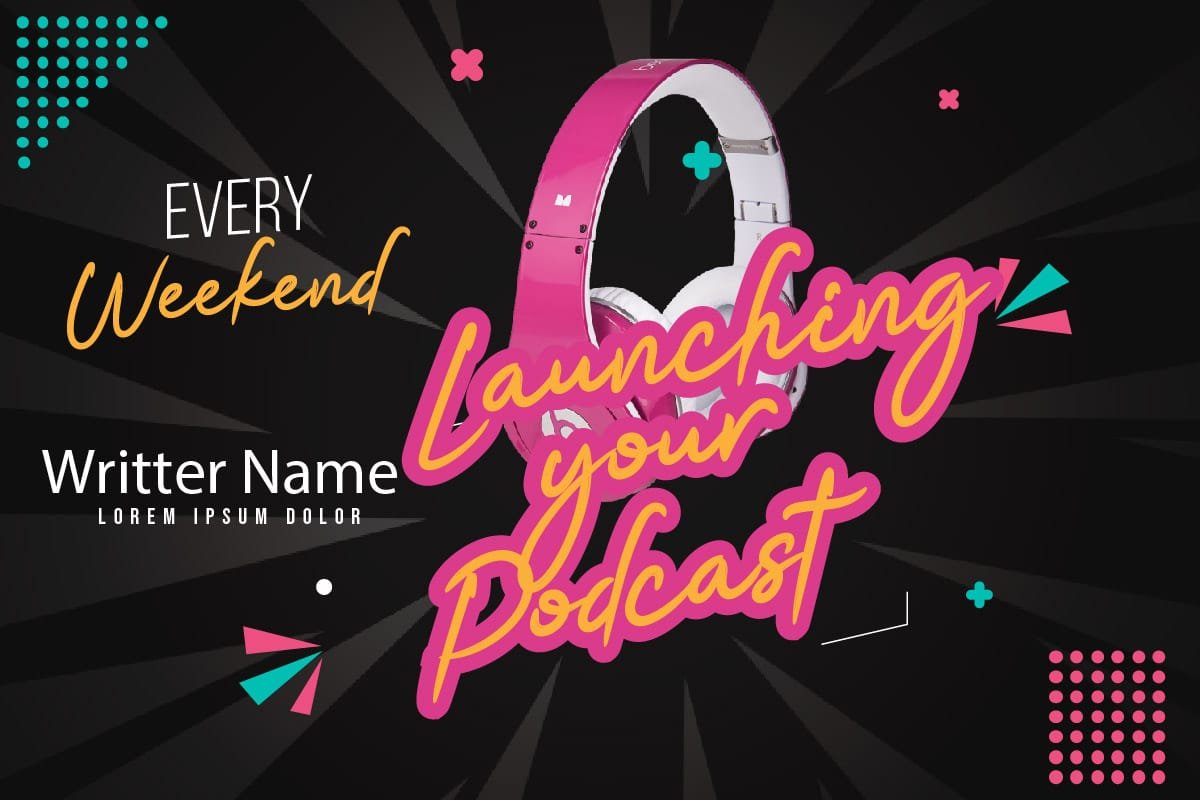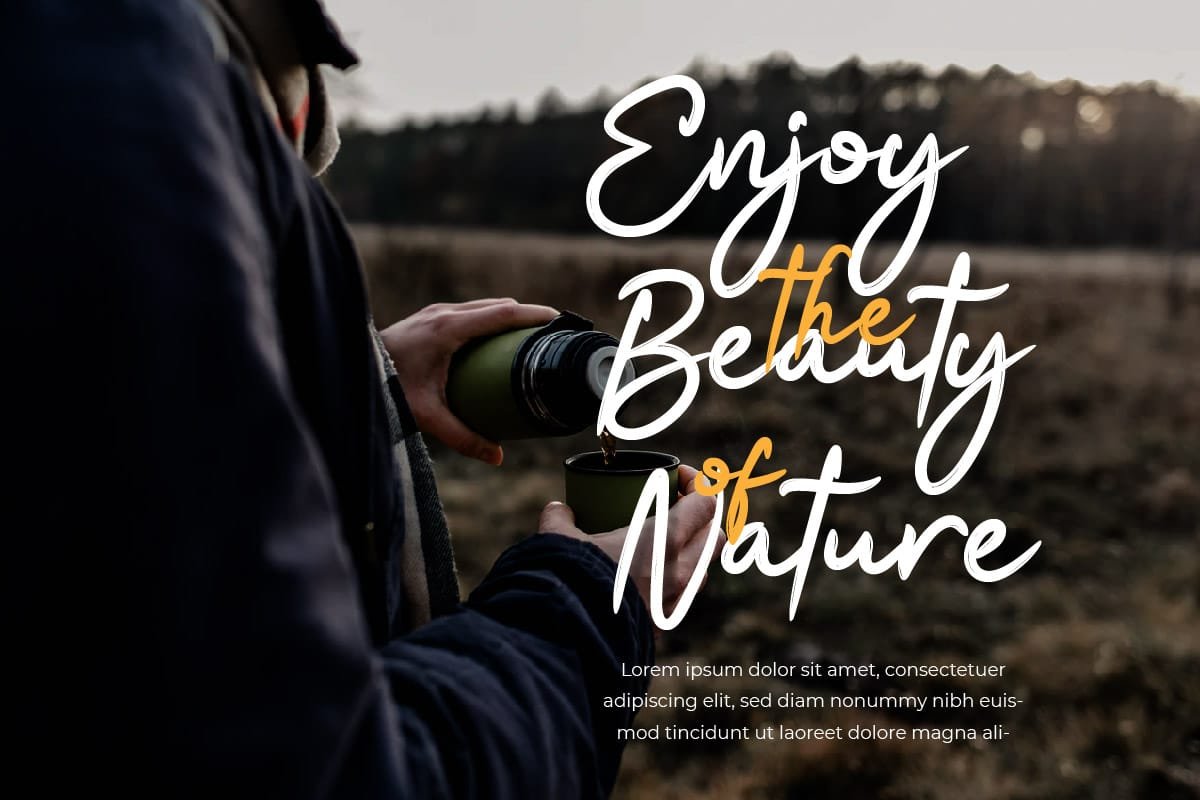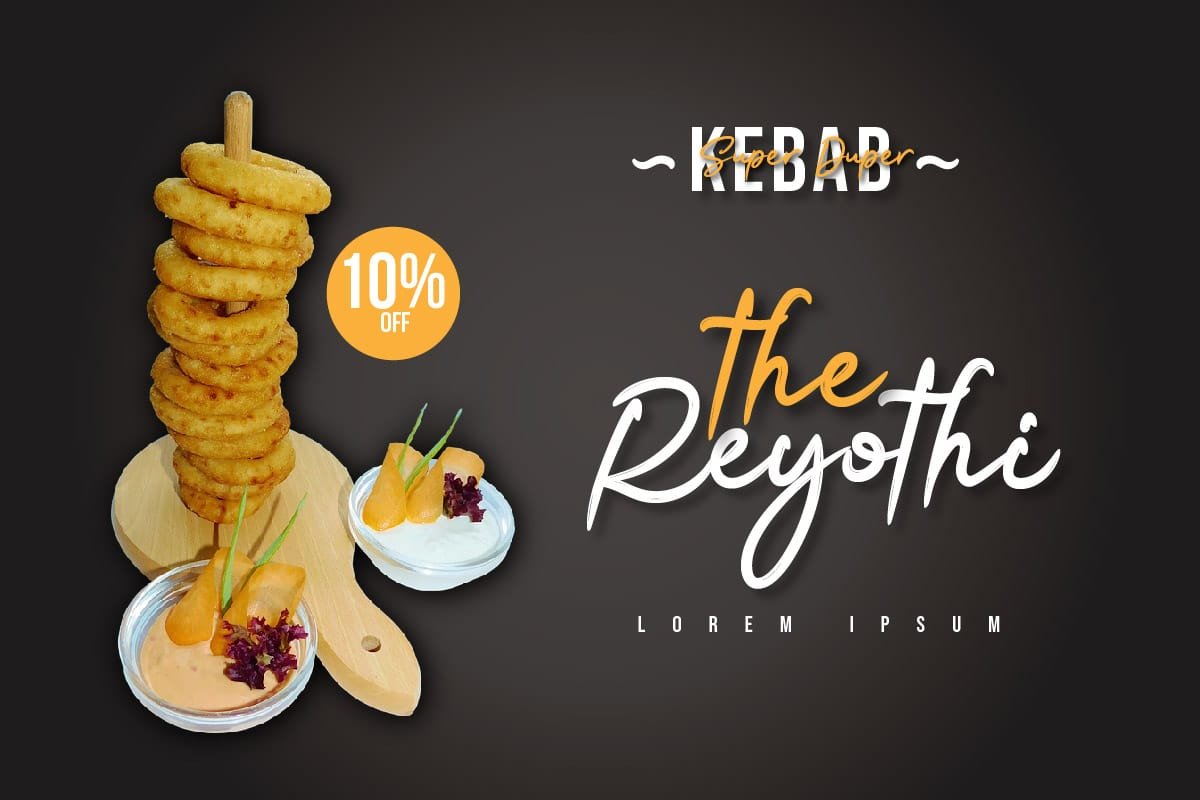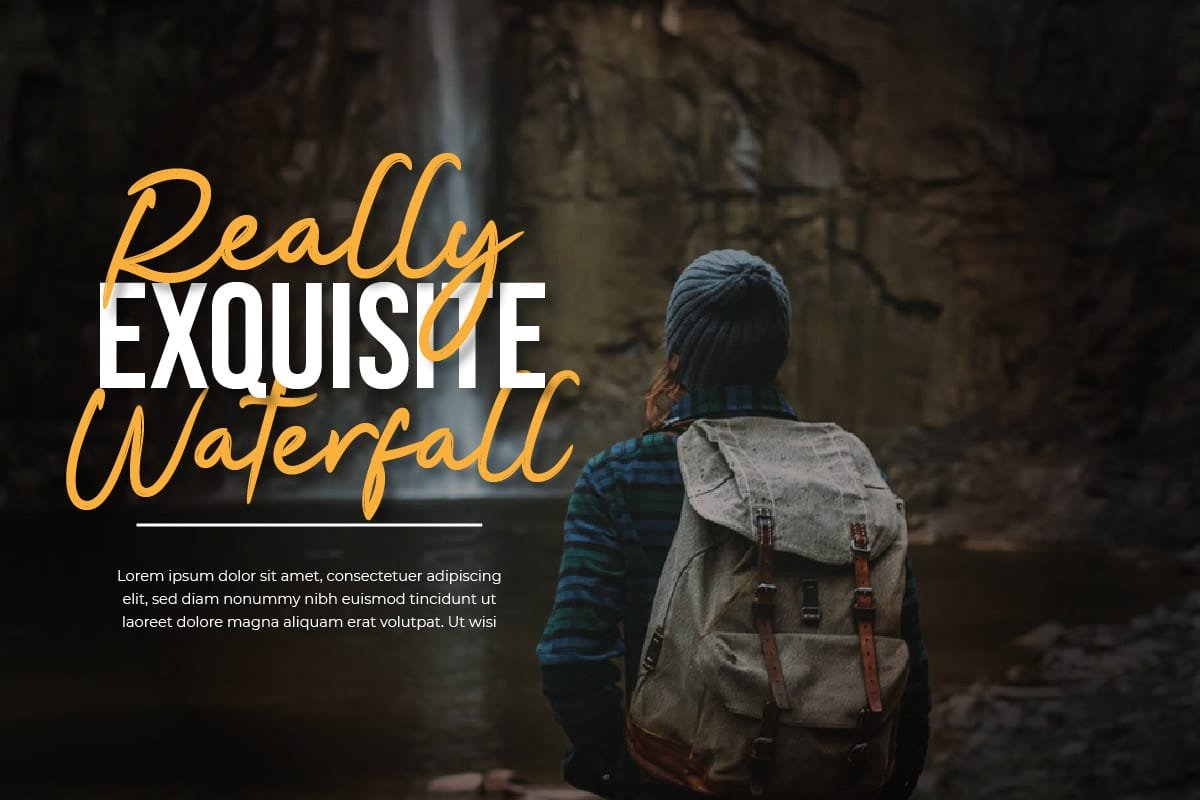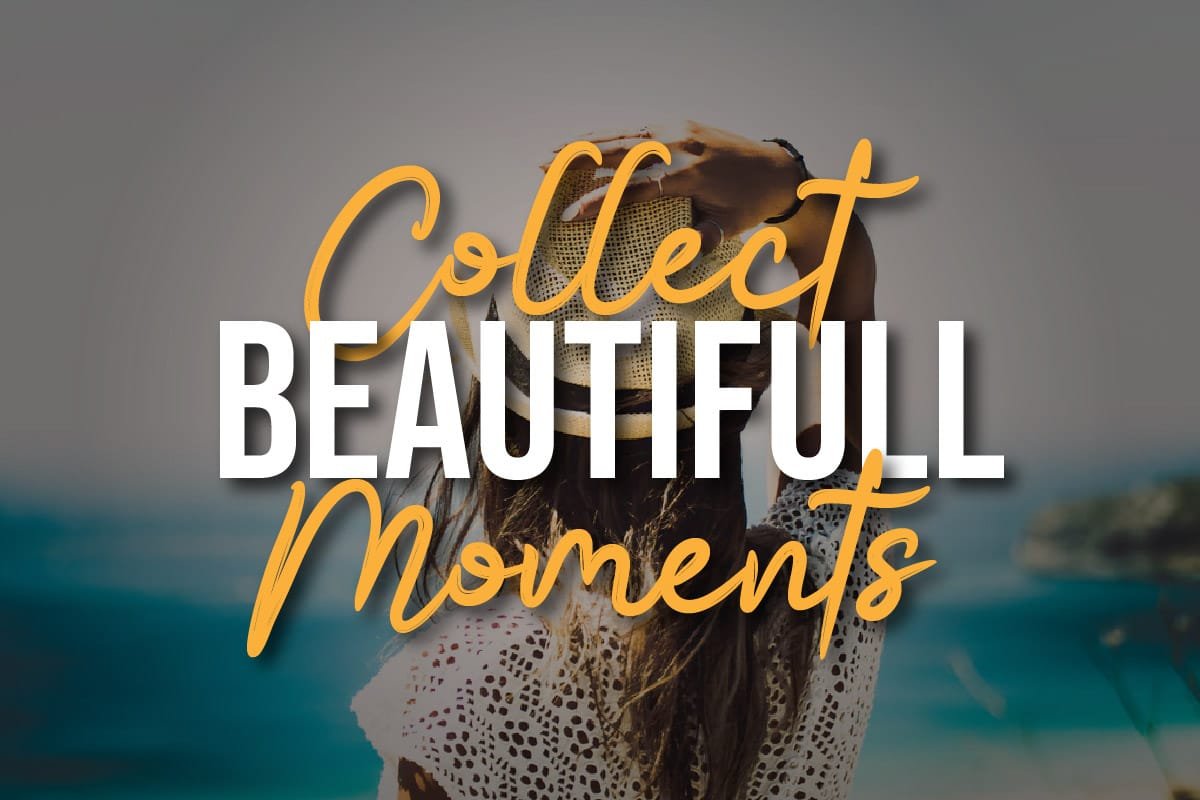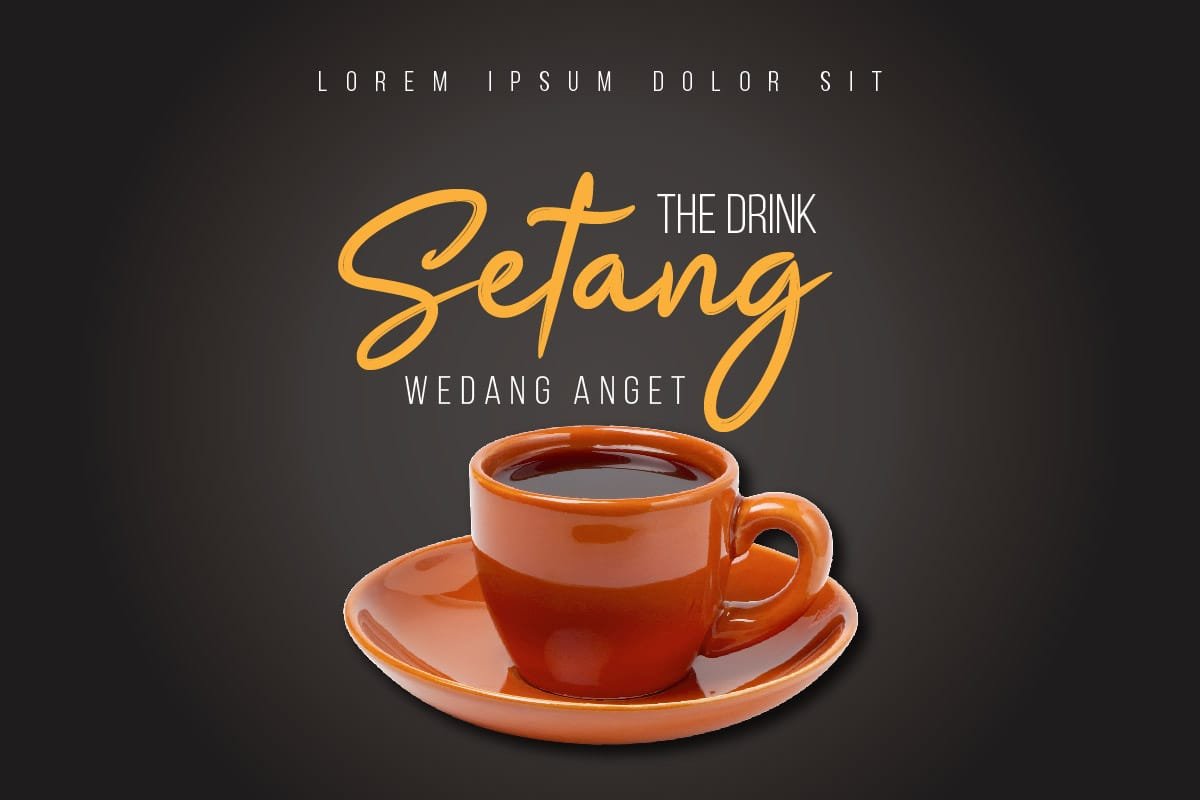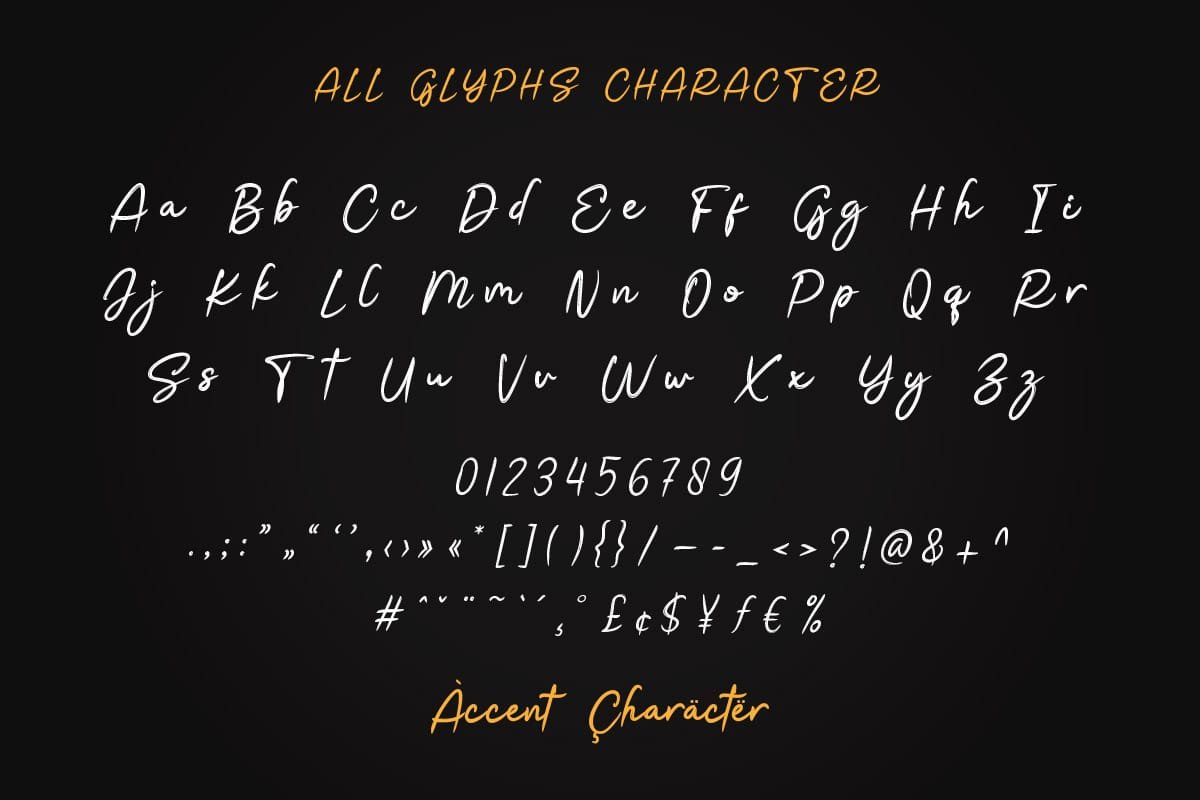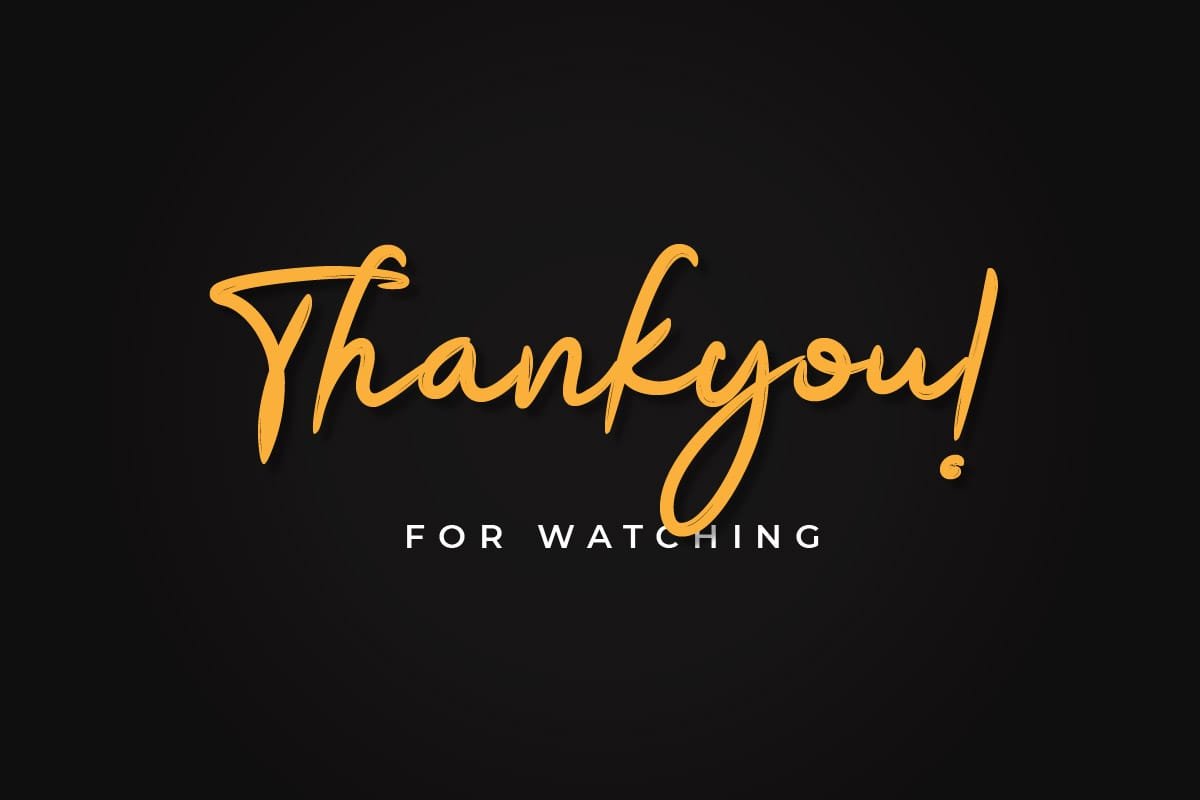
Illuminate your designs with the ethereal glow of Rembulan – Brush Handwritten Font. Inspired by the enchanting beauty of moonlit nights, this font captivates with its graceful curves and dreamy design. Perfect for projects that seek to evoke a sense of magic and romance, Rembulan is ideal for designing fantasy book covers, enchanting wedding invitations, or mystical branding. With Rembulan, every design becomes a journey into a world of wonder and enchantment, where imagination knows no bounds. Get ready to enchant your audience and transport them to a realm of dreams with Rembulan – the font that’s as mesmerizing as a starry sky.